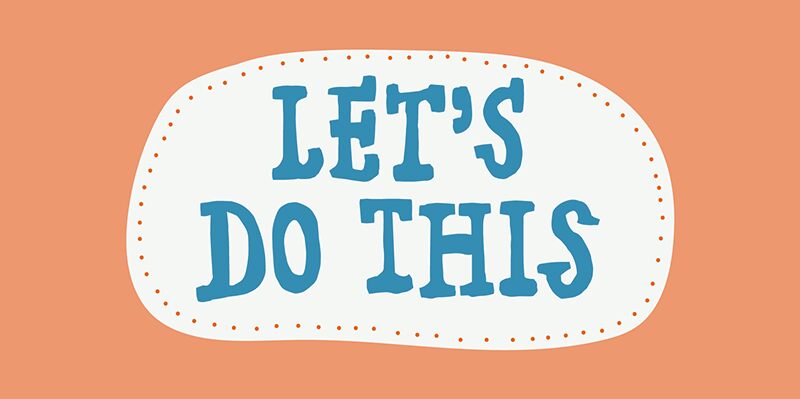
Loppemarked 1 Demo Regular
Loppemarked 1, designed by the talented Pizzadude, is a playful and vibrant display font that brings a touch of cartoonish charm to your projects. With its semi-bold weight and semi-condensed width, this font exudes a sense of confidence and dynamism.
Perfect for children's books, comic strips, toy packaging designs, and even animated videos, Loppemarked 1 will infuse your creations with whimsy and creativity. Let your imagination run wild as you explore the versatility of this font that adds a delightful twist to any project it graces.